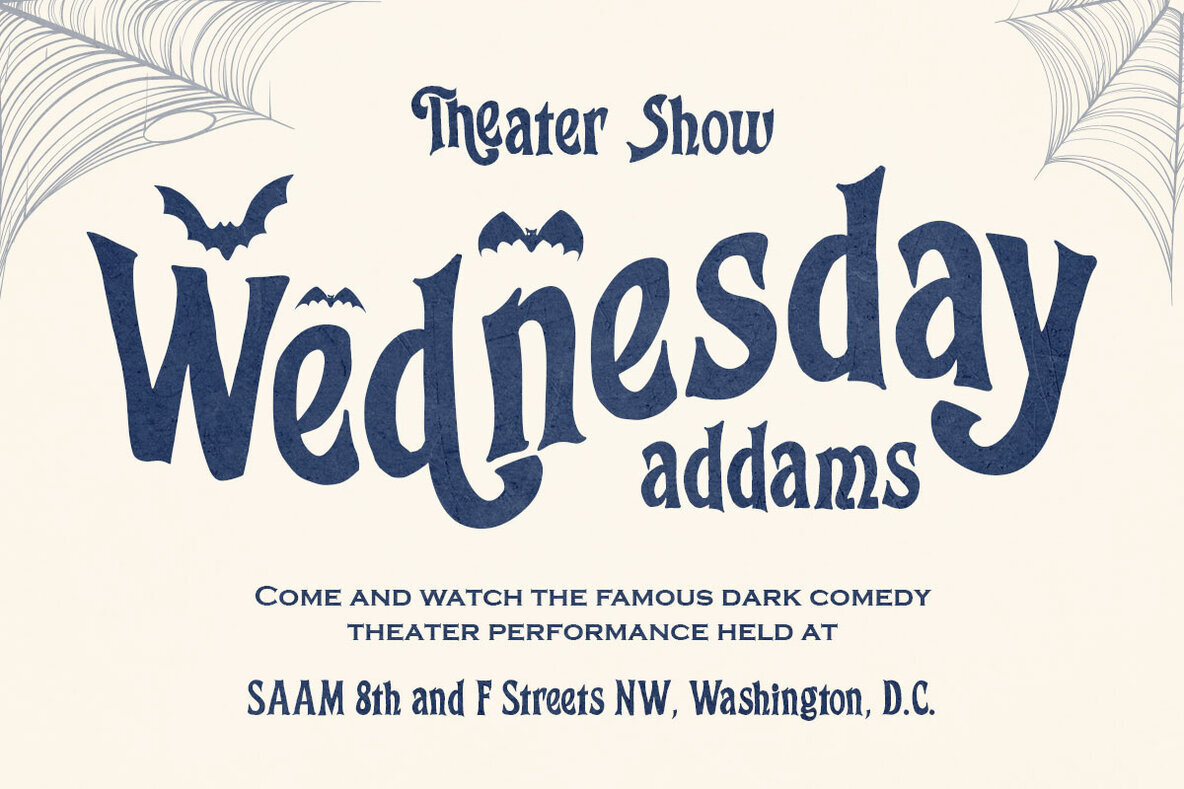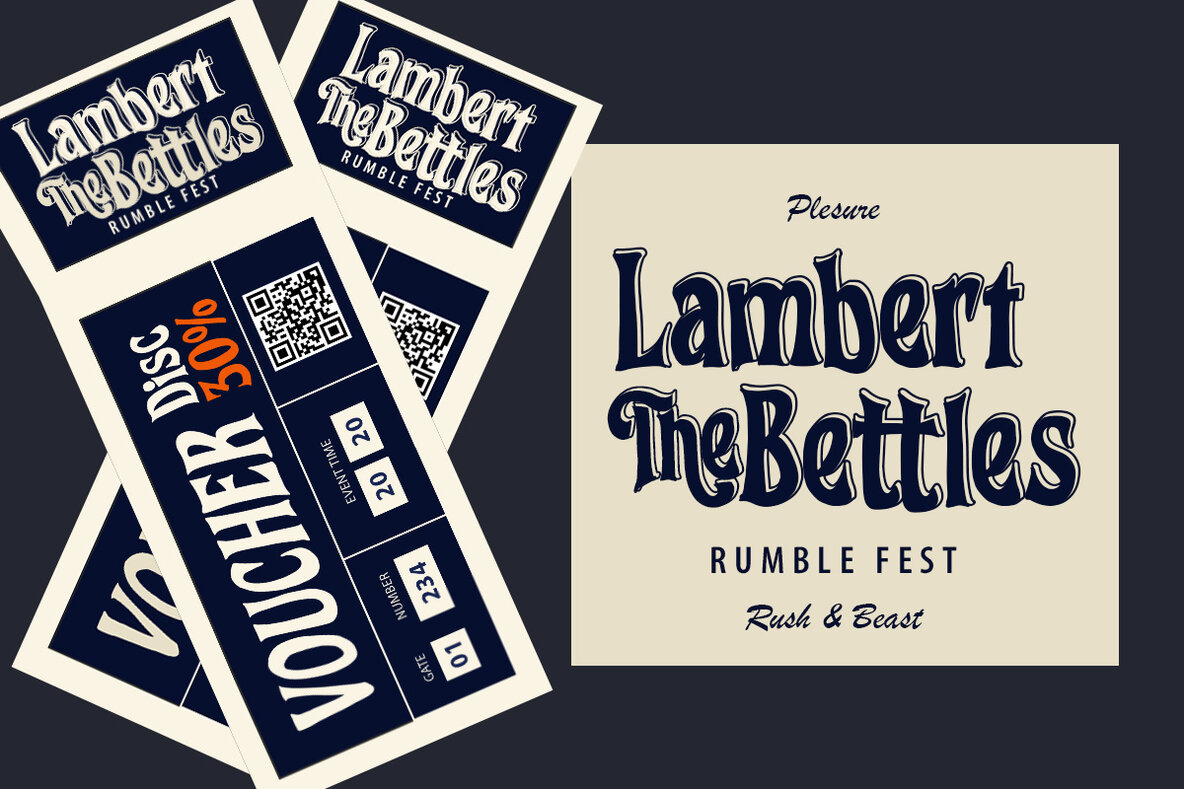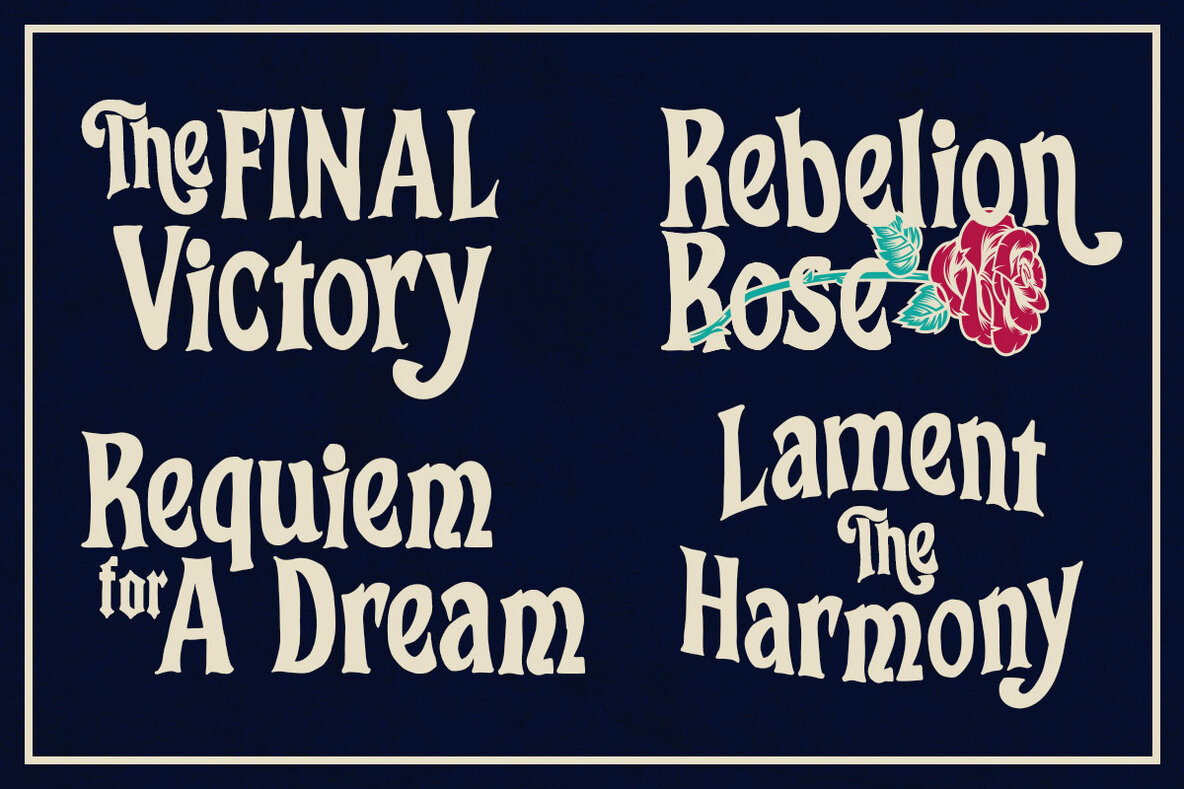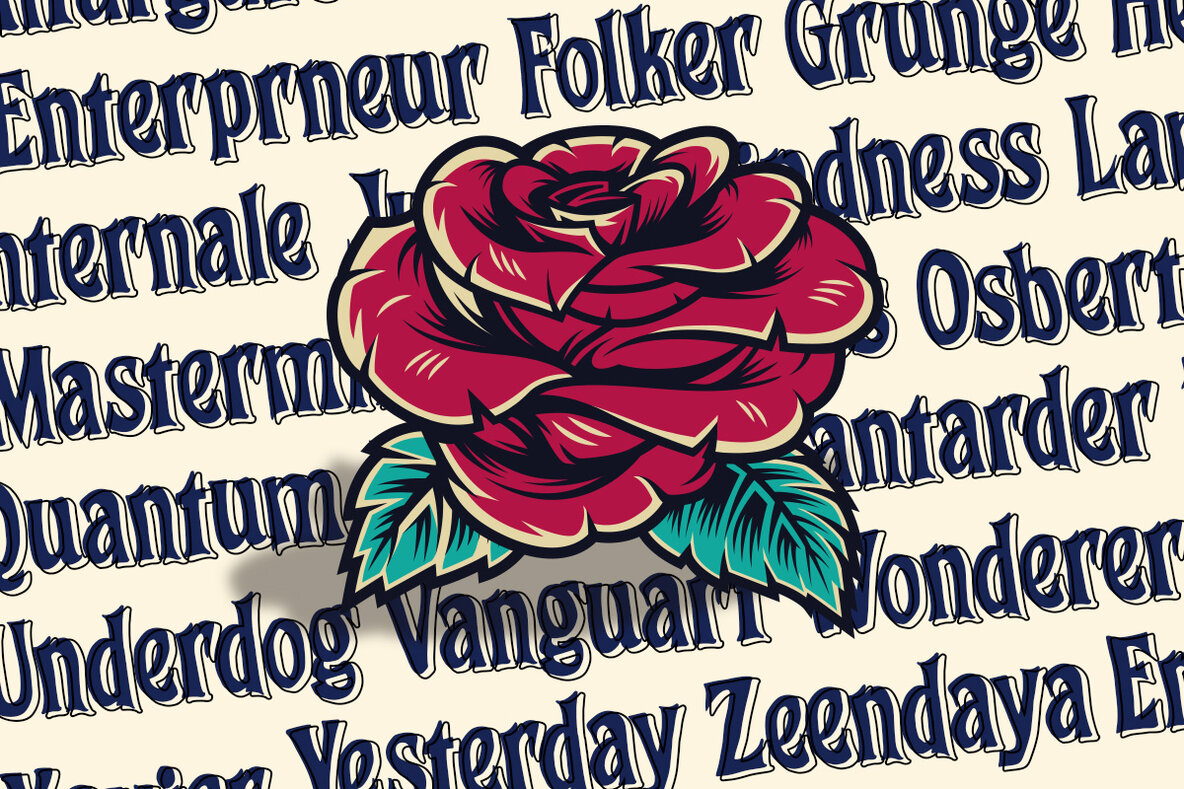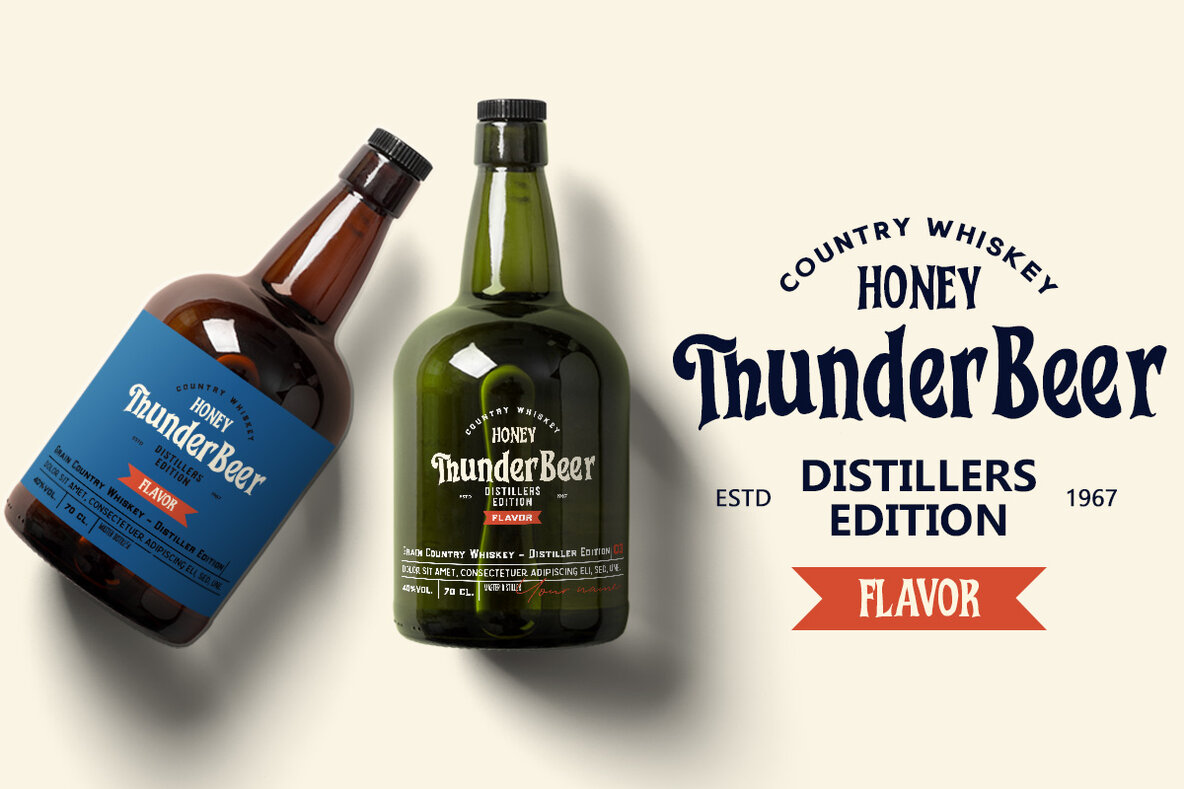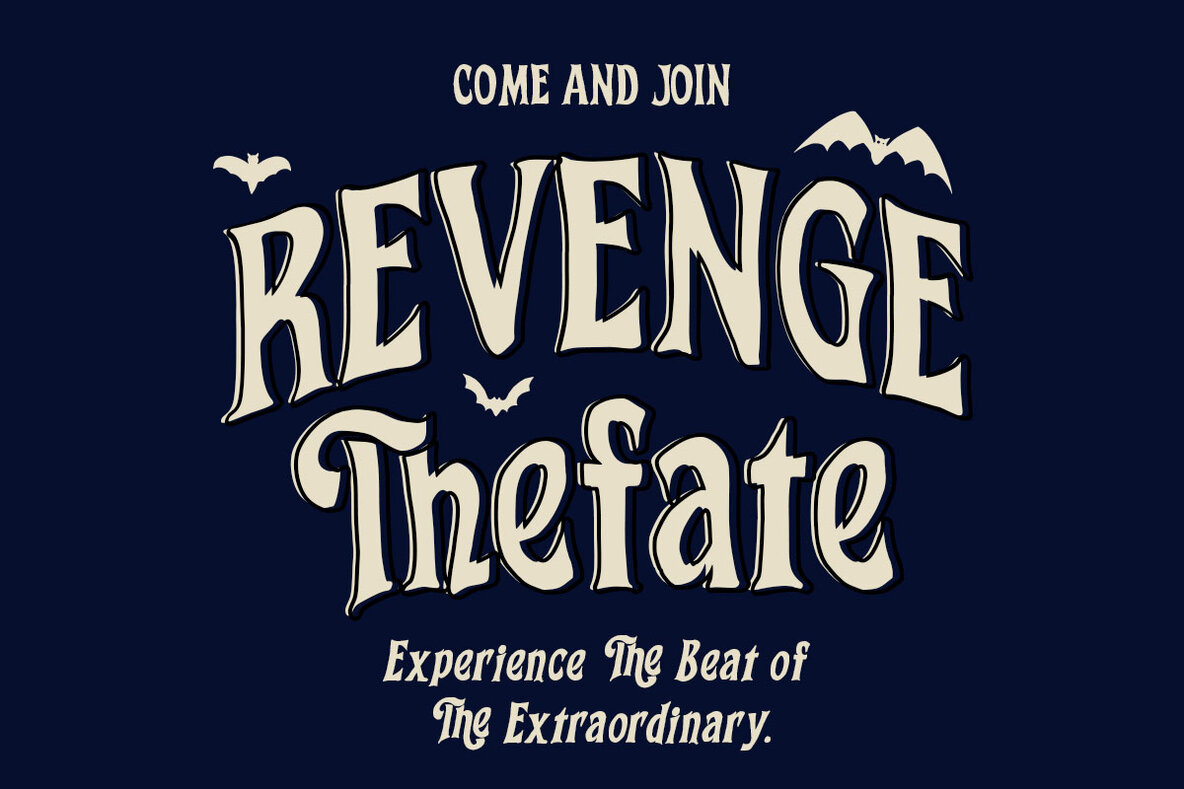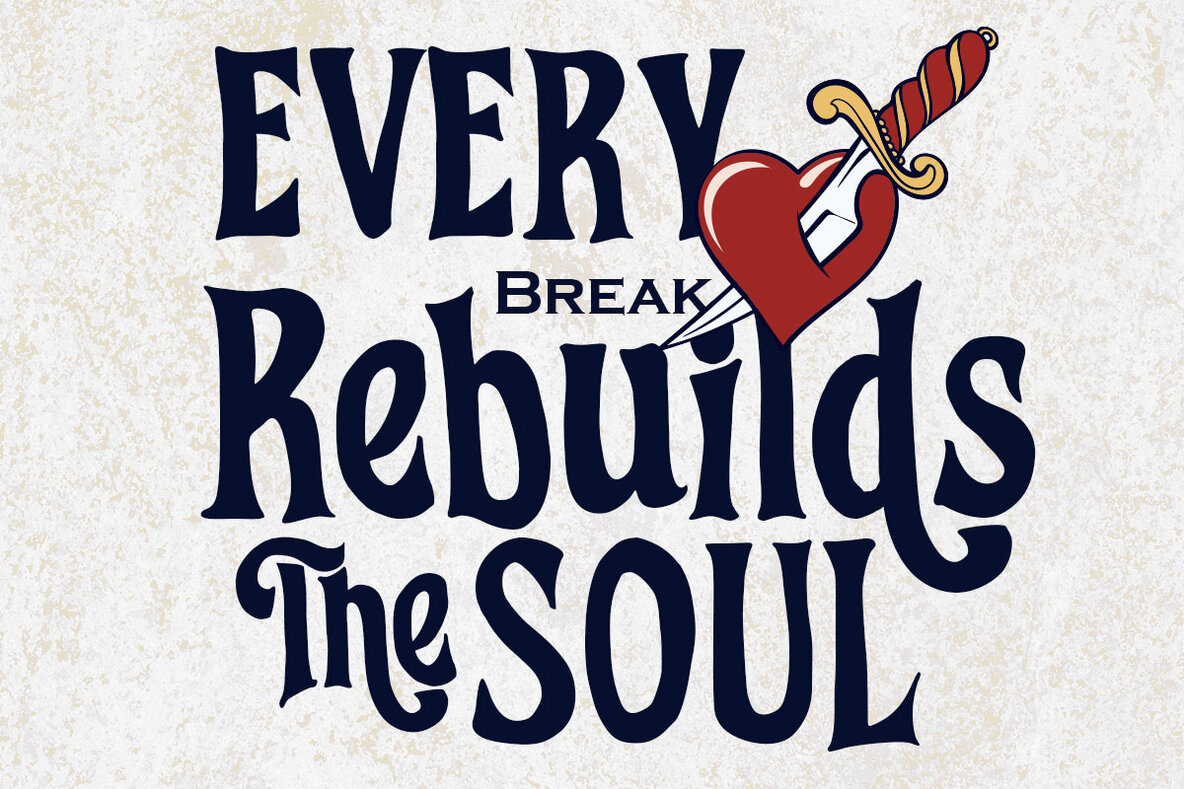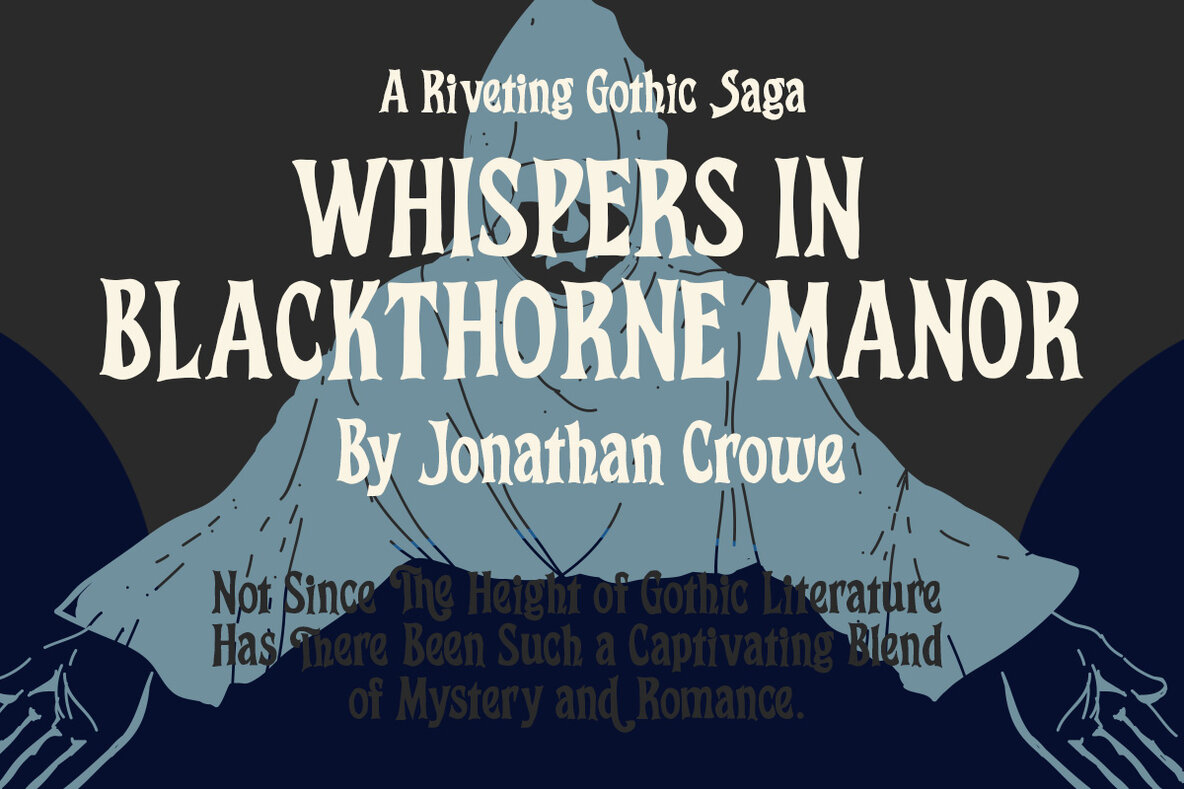
The Tragic Romantic Font
The Tragic Romantic is a distinctive hand brush font designed for bold and expressive creativity. Crafted with brush and ink, it features three versatile styles: Regular, Italic, and Outline. This typeface is perfect for projects that demand a watercolor aesthetic or a handwritten touch, making it ideal for blog titles, posters, wedding elements, t-shirts, clothing, book covers, business cards, greeting cards, branding, and merchandise.
This font offers a comprehensive set of characters, including uppercase and lowercase letters, ligatures, alternates, punctuation, numbers, and multilingual support. Its artistic flair and adaptability make it an excellent choice for designers seeking to add an organic, personal, and dramatic touch to their work. Whether you’re crafting a striking poster or a heartfelt wedding invitation, The Tragic Romantic enhances your design with its unique, hand-drawn appeal.